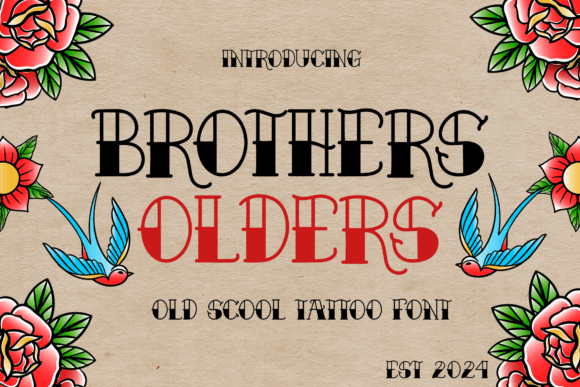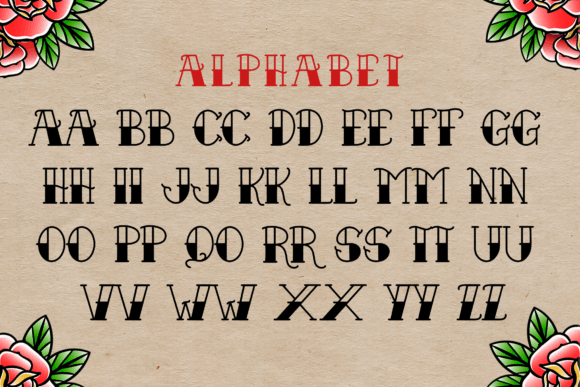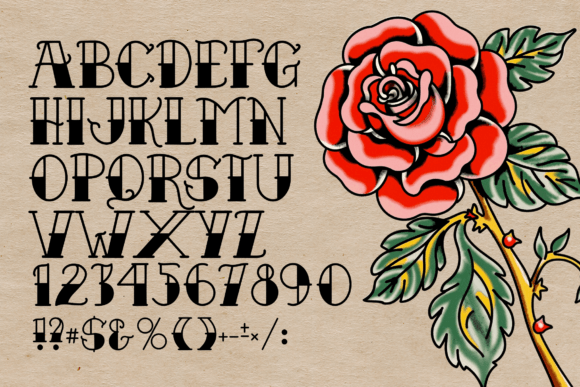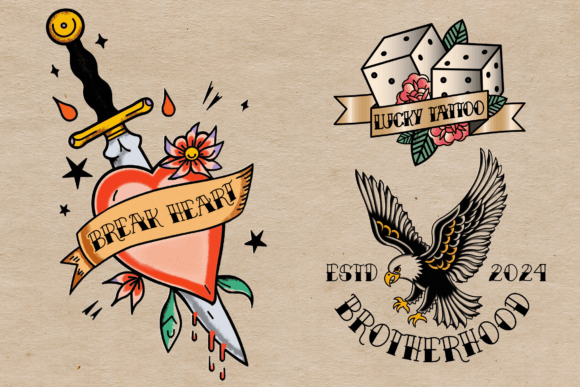
Brothers Olders Font: Vintage Tattoo Display Font for Bold Designs
About the Brothers Olders Font
Welcome to the world of Brothers Olders Font, a typeface that will inspire your next great project. Brothers Olders is a vintage tattoo display that showcases classic tattoo designs. It features bold, timeless artwork inspired by traditional styles, highlighting intricate details and old-school imagery.
Brothers Olders excels as a headline font for projects needing a bold, vintage aesthetic. It’s ideal for branding materials such as logos, posters, and short taglines where its intricate details can shine. Consider it for packaging design focusing on a retro or rebellious feel, or for merchandise related to Americana, motorcycles, or tattoo culture. Avoid using it for large amounts of body text; its highly decorative nature makes it unsuitable for extended reading.
The font’s personality is undeniably bold and rebellious, with a touch of classic Americana. This makes it a powerful choice for brands wishing to convey strength and heritage. To soften the intensity, pair Brothers Olders with a clean sans-serif like Montserrat for body text, or a slightly more playful script like Pacifico for secondary elements.
For a more contrasting and modern feel, a geometric sans-serif such as Futura would create a strong visual tension. Alternatively, a neutral serif like Garamond could add a touch of sophistication and balance the vintage feel without overpowering the main headline.